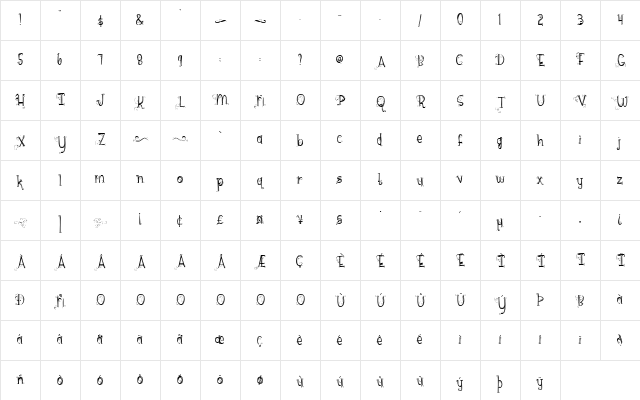
{hazel grace} Regular Free Font
{hazel grace} Regular
Foundry: Brittney Murphy
Designer: Brittney Murphy
Design Context for {hazel grace}
{hazel grace} is a composed and adaptable typeface that performs quietly and consistently across a wide range of design contexts.